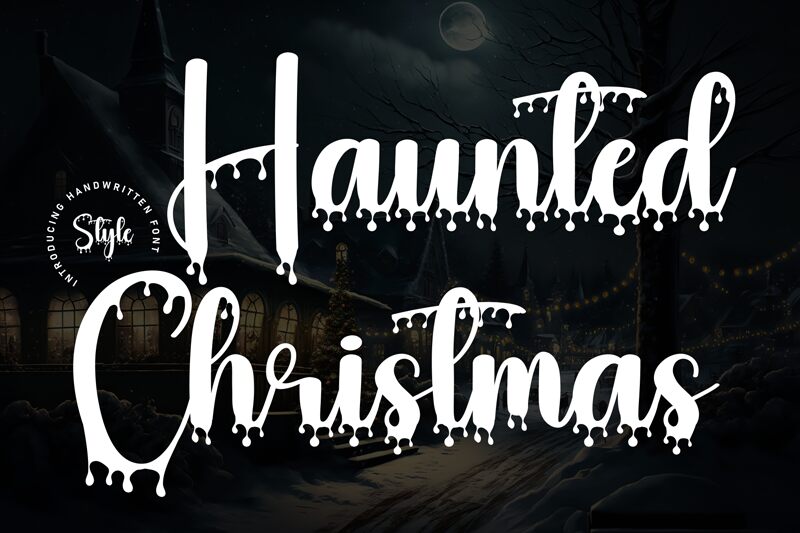
Haunted Christmas font by Scratchones is a free font that evokes an eerie and mysterious atmosphere that works well for spooky Halloween or Christmas-themed designs. The dramatic characters combine a dripping effect with handwritten letters in a decorative and dramatic fashion; this results in a playful and unforgettable type of aesthetic.
These attributes make Haunted Christmas perfect for thematic branding, invitations, packaging, logos, posters, signs, social media templates, event designs, books, and more. The options are literally limitless since all it takes is some creativity and imagination to utilize the font to its fullest.